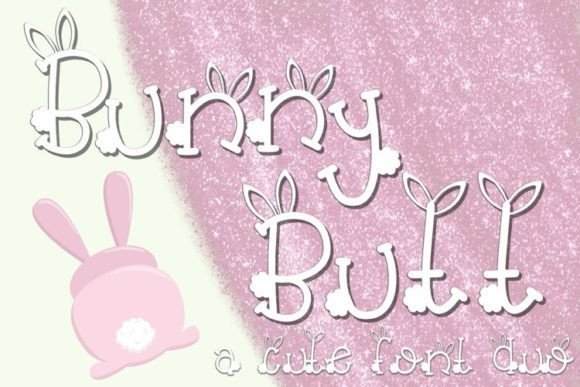
Get Ready to Hop into Creativity with Bunny Butt Duo Font
Have you ever sat at your desk, staring at a blank page, and suddenly, a spark of inspiration hits you? Maybe it’s the idea for a new children’s book, a whimsical logo design, or a playful social media post. Whatever it is, you know you need a font that captures the magic of your creative vision.
That’s where the Bunny Butt Duo Font comes in – a delightful, handwritten decorative font duo that’s full of bunny ears and ready to bring a smile to your audience’s faces. This charming font is designed to add a touch of sweetness and playfulness to any creative project, making it perfect for designers who want to create projects that are both cute and incredibly friendly.
- Font Family: Bunny Butt Duo, a playful and whimsical sans-serif font designed for fun and creative projects.
- Unique Characteristics: The Bunny Butt Duo font features a unique bunny ear design at the end of the letters ‘g’ and ‘q’, adding a playful touch to your designs.
Bunny Butt Duo Font Review
The Bunny Butt Duo Font is a unique and playful font that can add a touch of whimsy to your design projects. ✨ One thing that works well is its versatility – it can be used for a variety of purposes, from children’s book illustrations to social media graphics. The font is also well-suited for creating eye-catching headings and titles.
However, there are some limitations to consider. ⚠️ The font may not be suitable for formal or professional designs, as it can come across as childish or immature. Additionally, the font may not be as readable at smaller font sizes, which can make it difficult to use in situations where space is limited.
- Unique and playful design
- Versatile and suitable for various design projects
- Well-suited for creating eye-catching headings and titles
- May not be suitable for formal or professional designs
- Not as readable at smaller font sizes
Overall, the Bunny Butt Duo Font is a fun and creative addition to any designer’s toolkit. While it may have some limitations, it can be a great choice for projects that require a playful and whimsical touch.
The Bunny Butt Duo Font is perfect for creating playful and whimsical designs. Use it for:
- Food and drink branding
- Any project that needs a touch of cuteness and playfulness